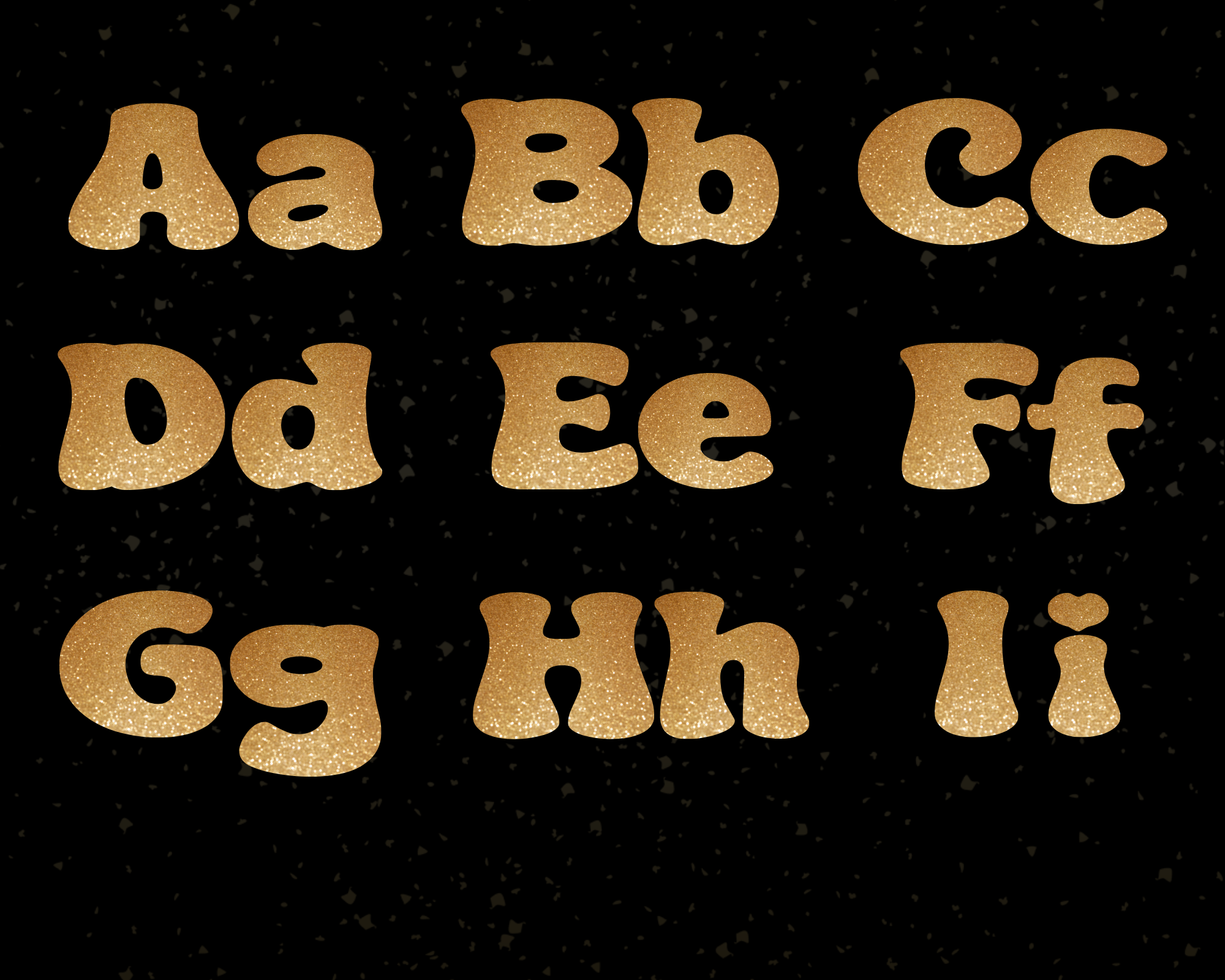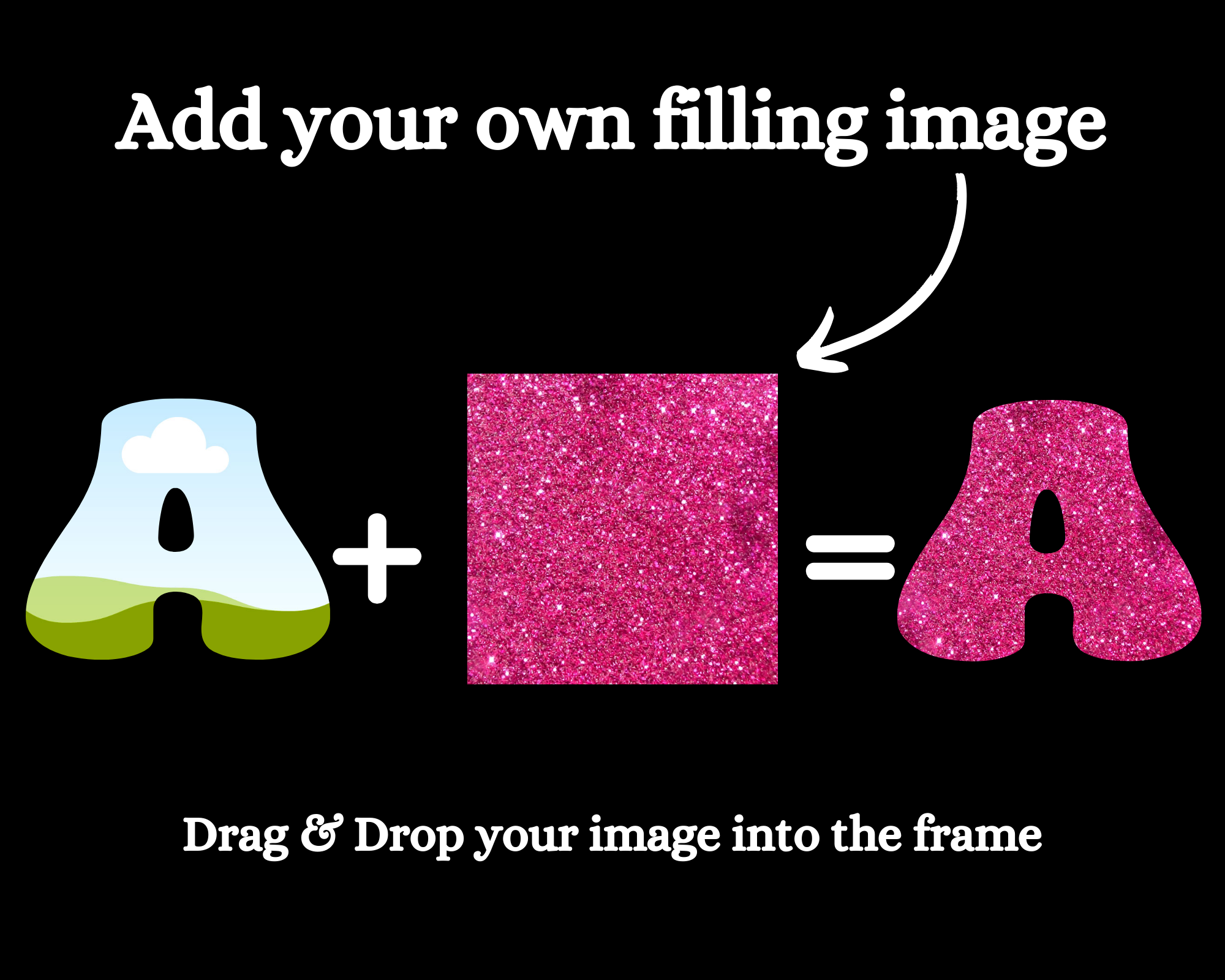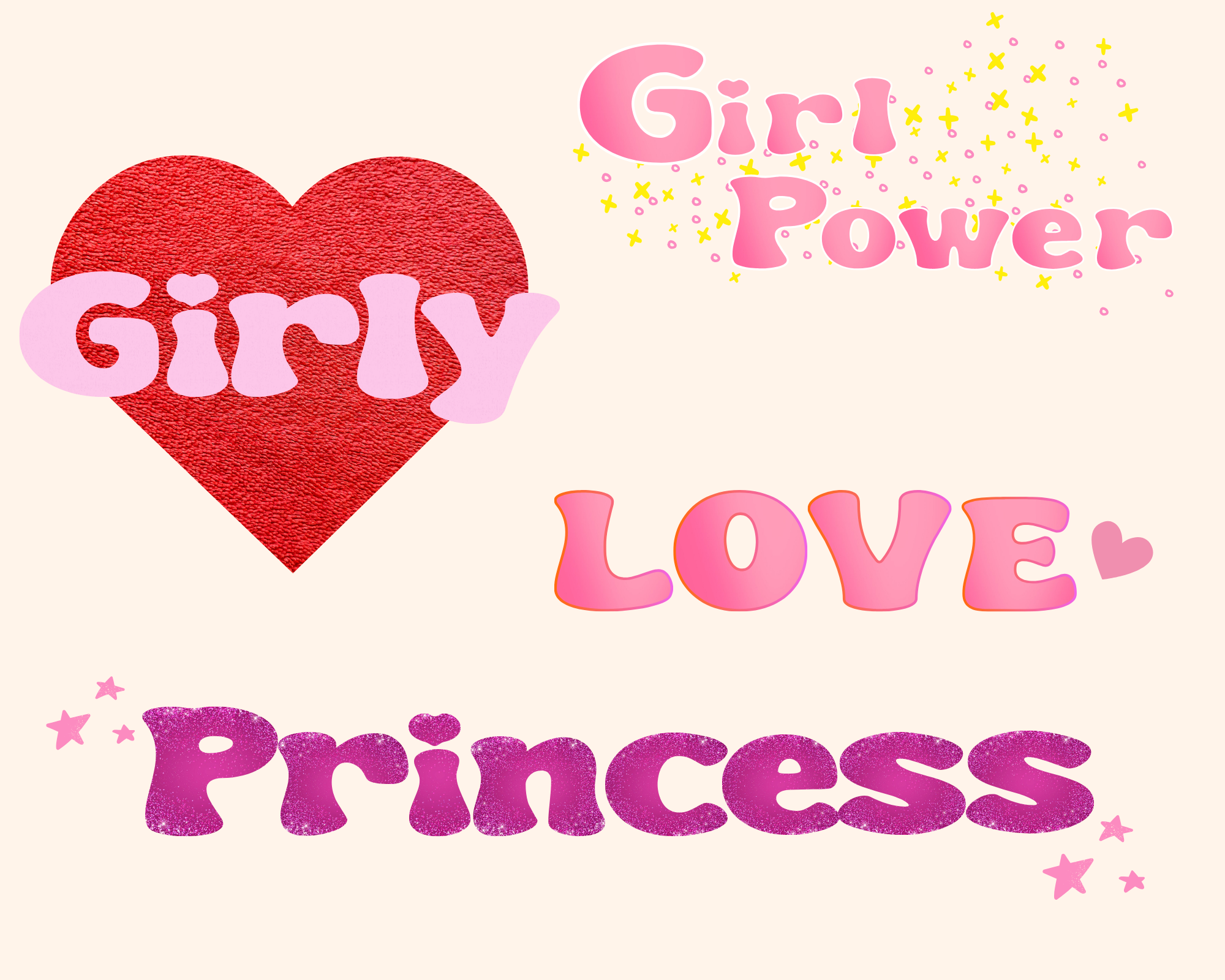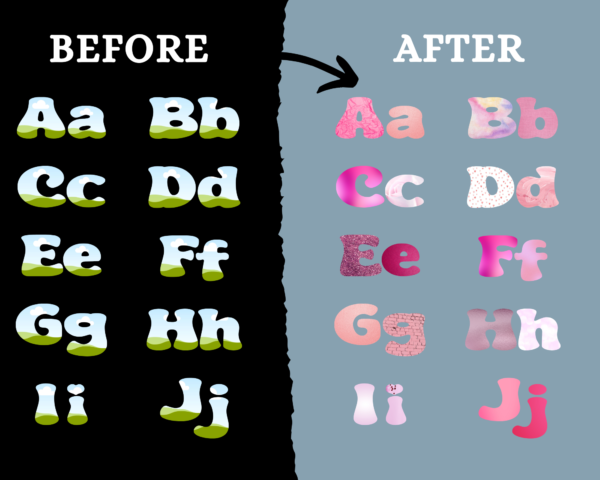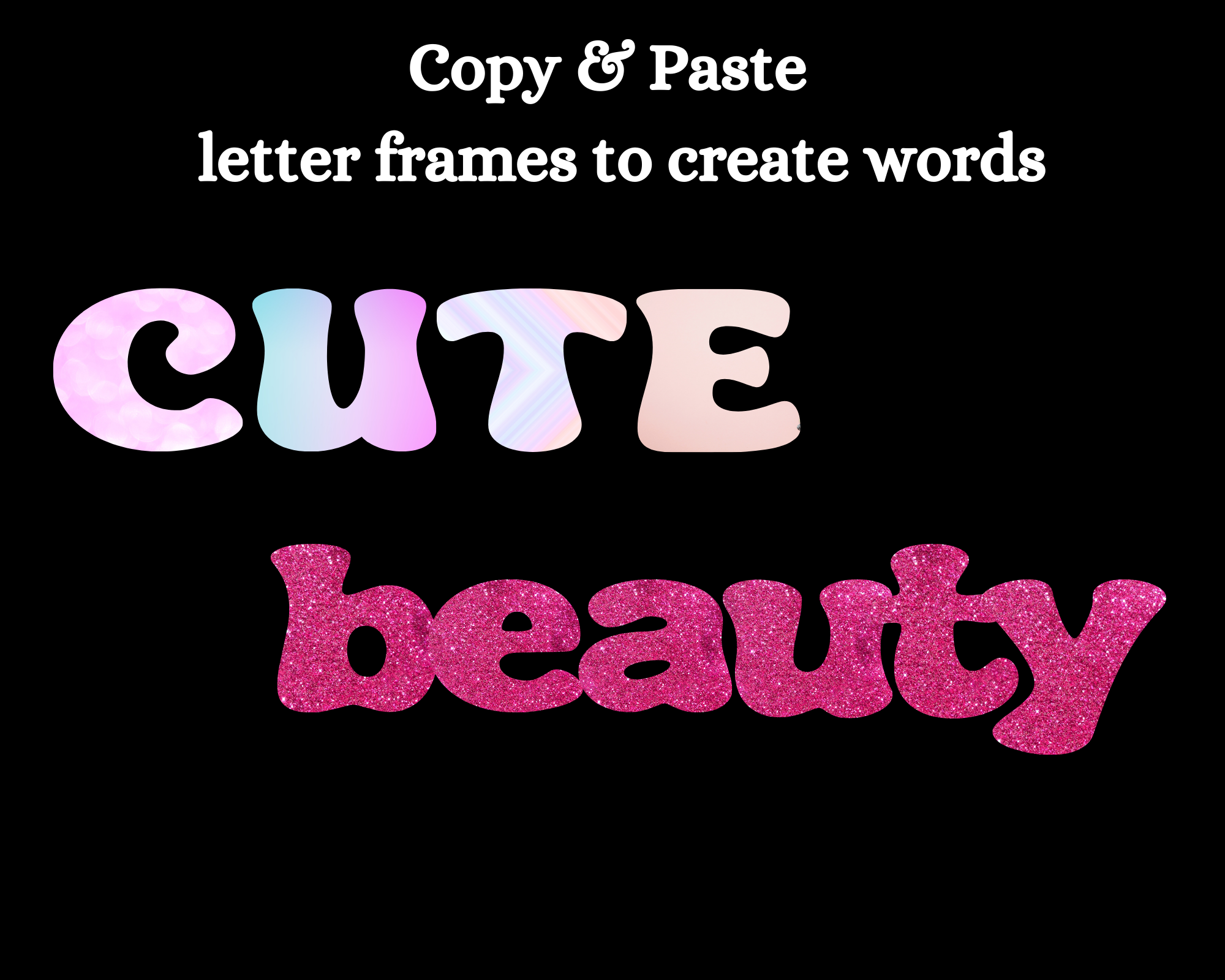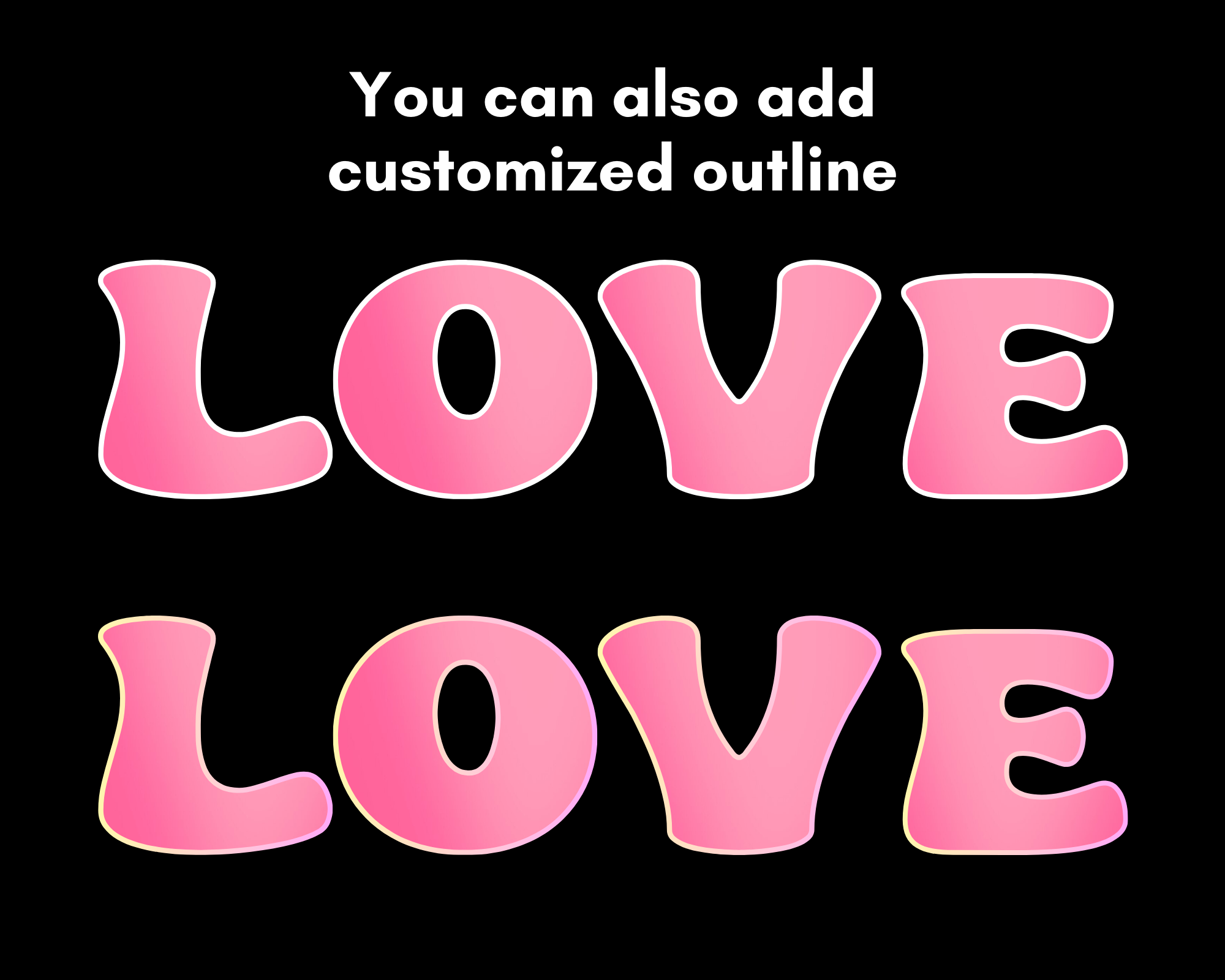
Doodle Alphabet Letters Canva, Girl Font, Bold Large Font, Uppercase, Lowercase, Heart Font, Bubble Letters, Frame Custom Letters, A-Z, Numbers, Symbols Cute
💗Meet these Doodle Alphabet Letters Canva – a fun and playful way to add charm to your designs! This Canva-compatible letters come with uppercase, lowercase letters, numbers and symbols, making it perfect for various projects.
🥰These Girly Doodle Letters will add a sweet touch to your designs. Customize each letter with images or videos for a personal touch. Ideal for girly projects, this font is all about adding cuteness and creativity effortlessly!
Create your own unique letters using these Customizable Letters.
– Uppercase & Lowercase, A to Z Letters, Numbers & Symbols Doodle Alphabet Letters Templates, customizable with a FREE Canva Account.
+ Possibility to customize a Letter Outline
– Background Images & Videos
– Resize the Letter frames
– Change outline color